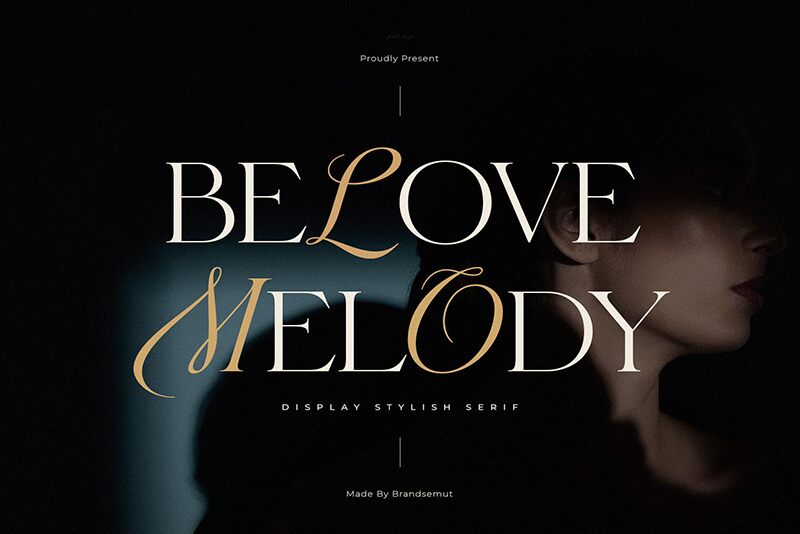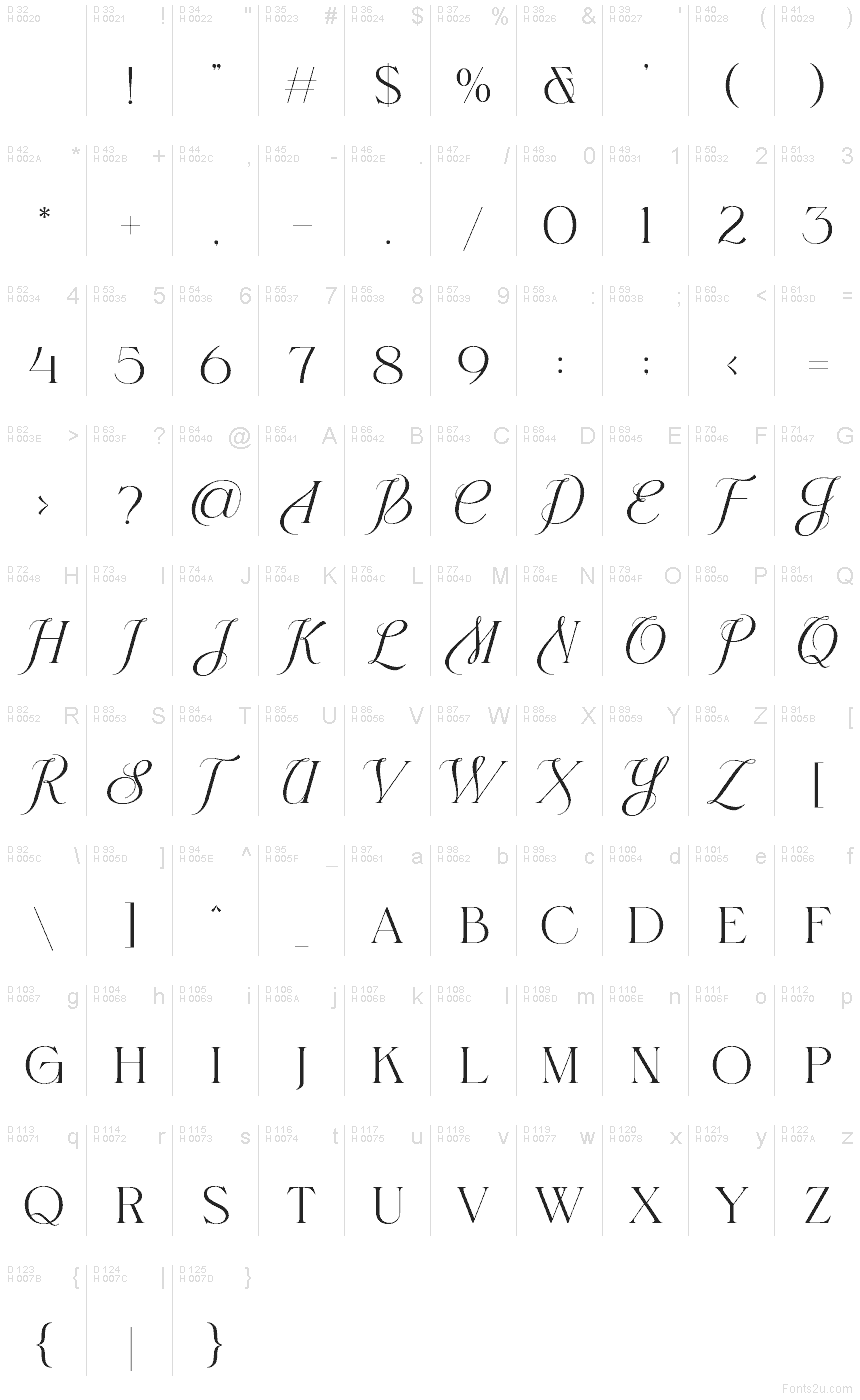
Belove Melody font by BrandSemut is a free romantic serif display typeface with a whisper-thin stroke and sweeping, calligraphic curves. Its tall, graceful letters feel like they were written with a fine inky pen, giving headlines a luxurious, almost cinematic presence. The flowing caps and delicate proportions create a sense of movement, as if the words are quietly dancing across the page.
Using Belove Melody, you can elevate wedding invitations, save-the-dates, boutique branding, perfume packaging, magazine covers, and social media quotes with effortless refinement. This free font shines when set large with generous spacing, letting the airy details breathe. Pair it with a clean geometric sans for body copy to balance its ornate, lyrical character.